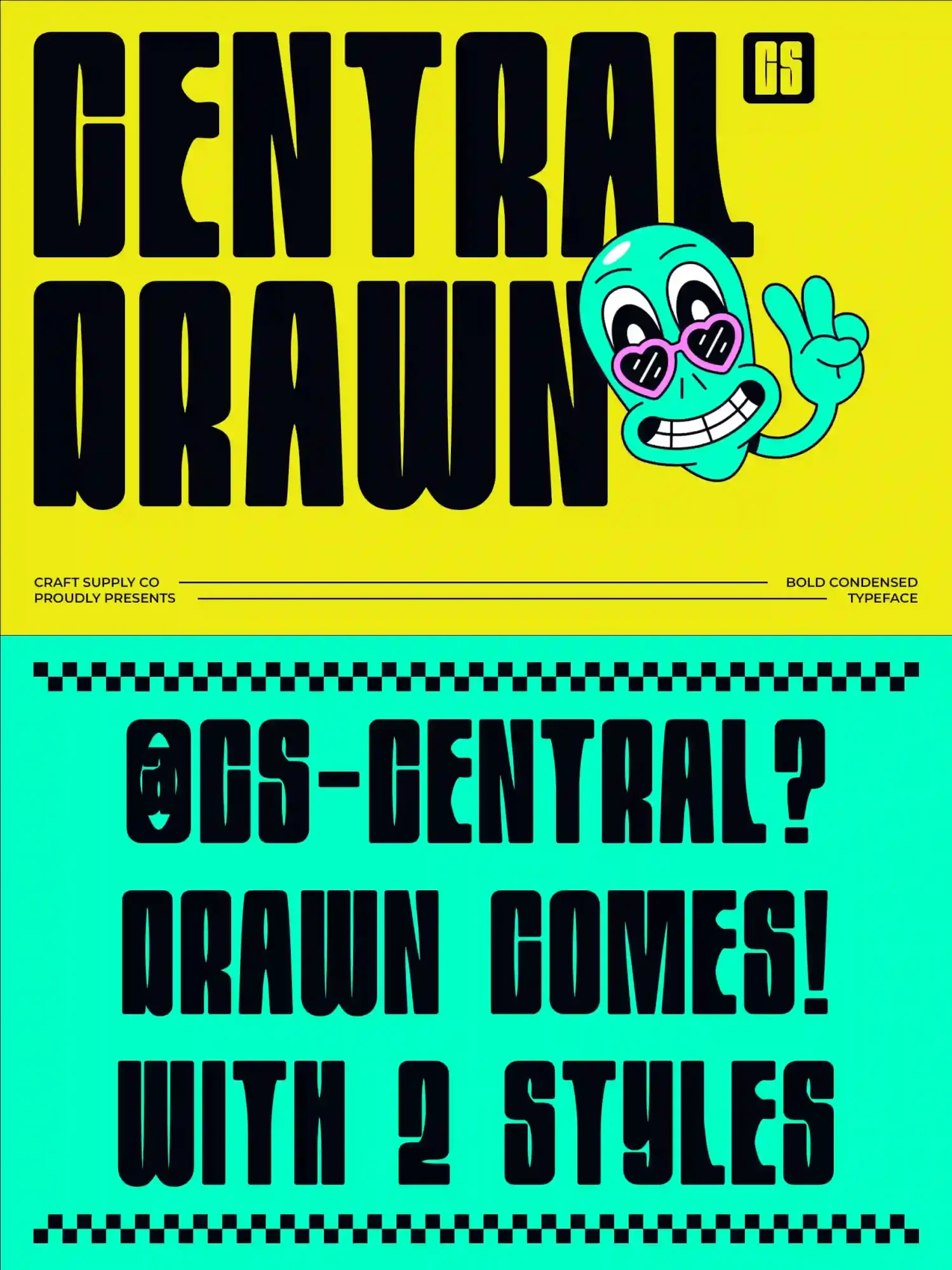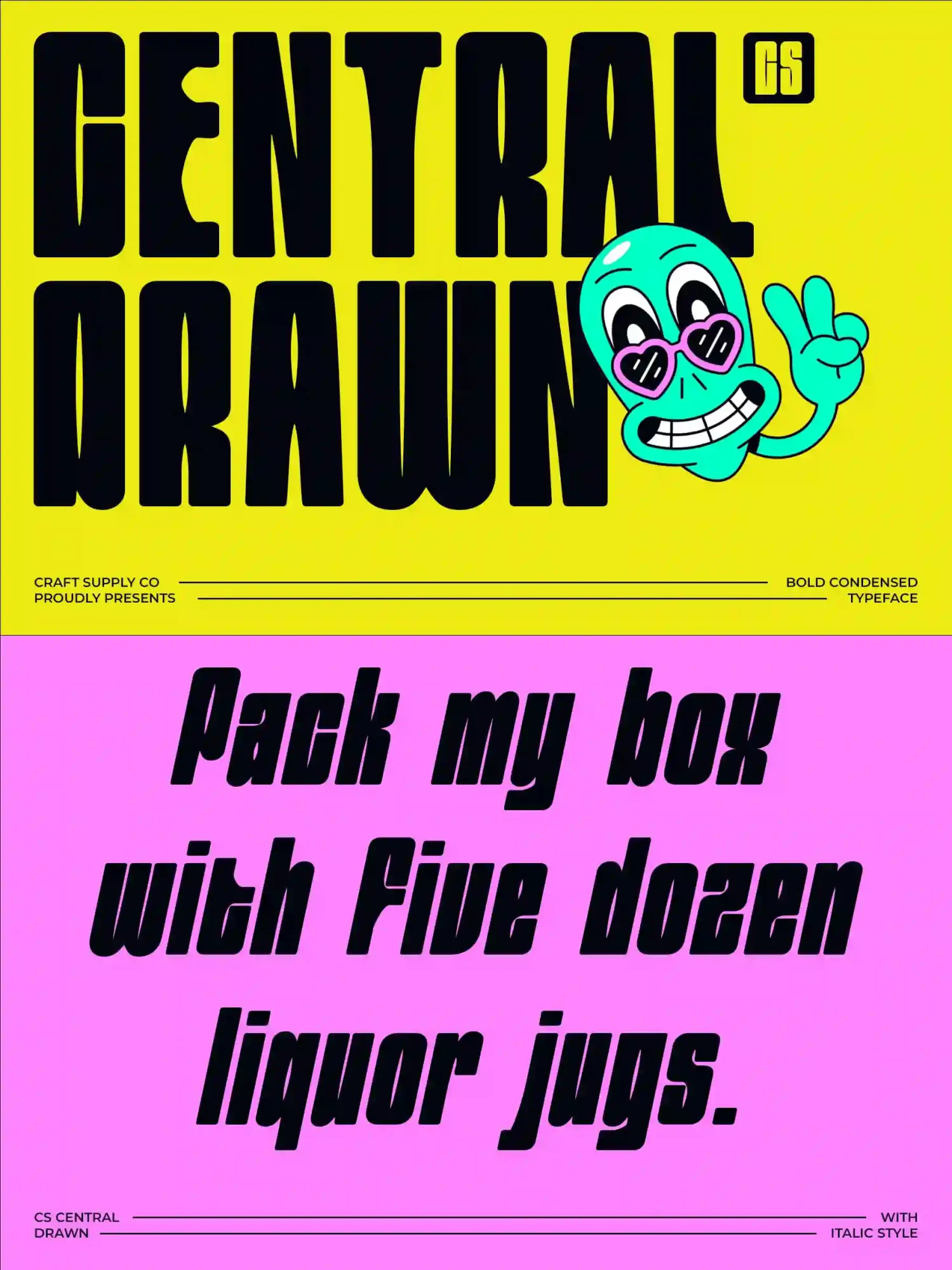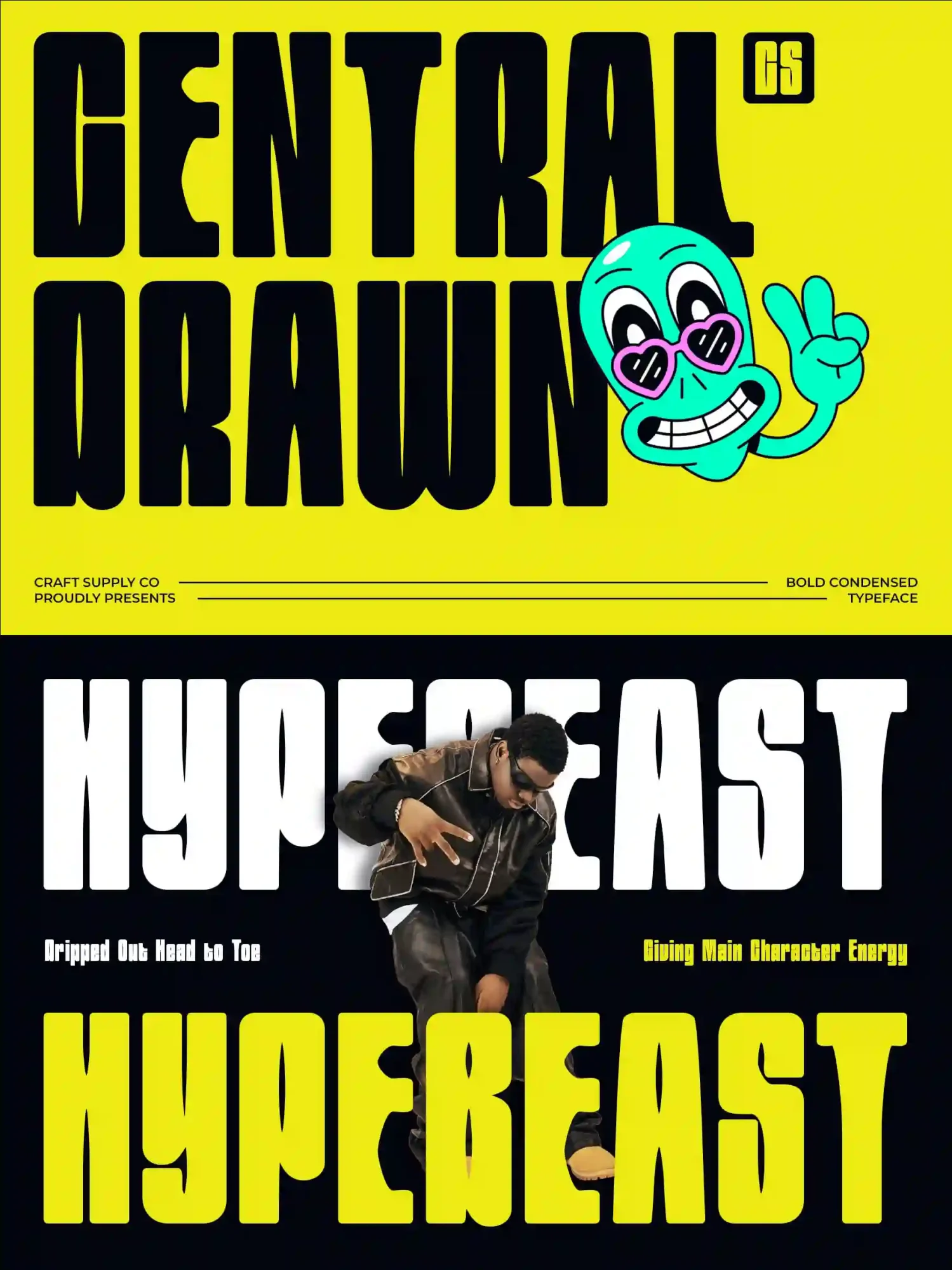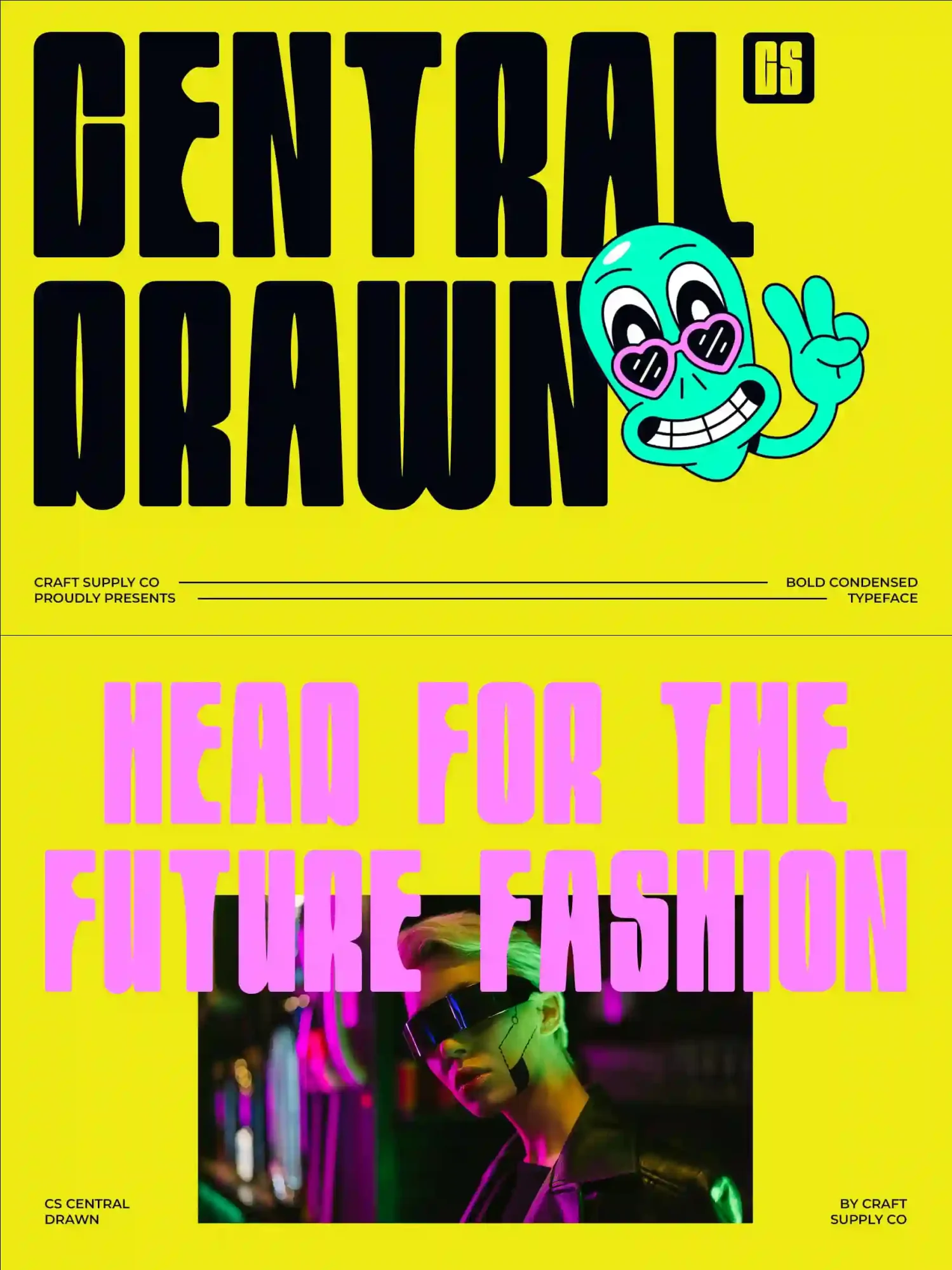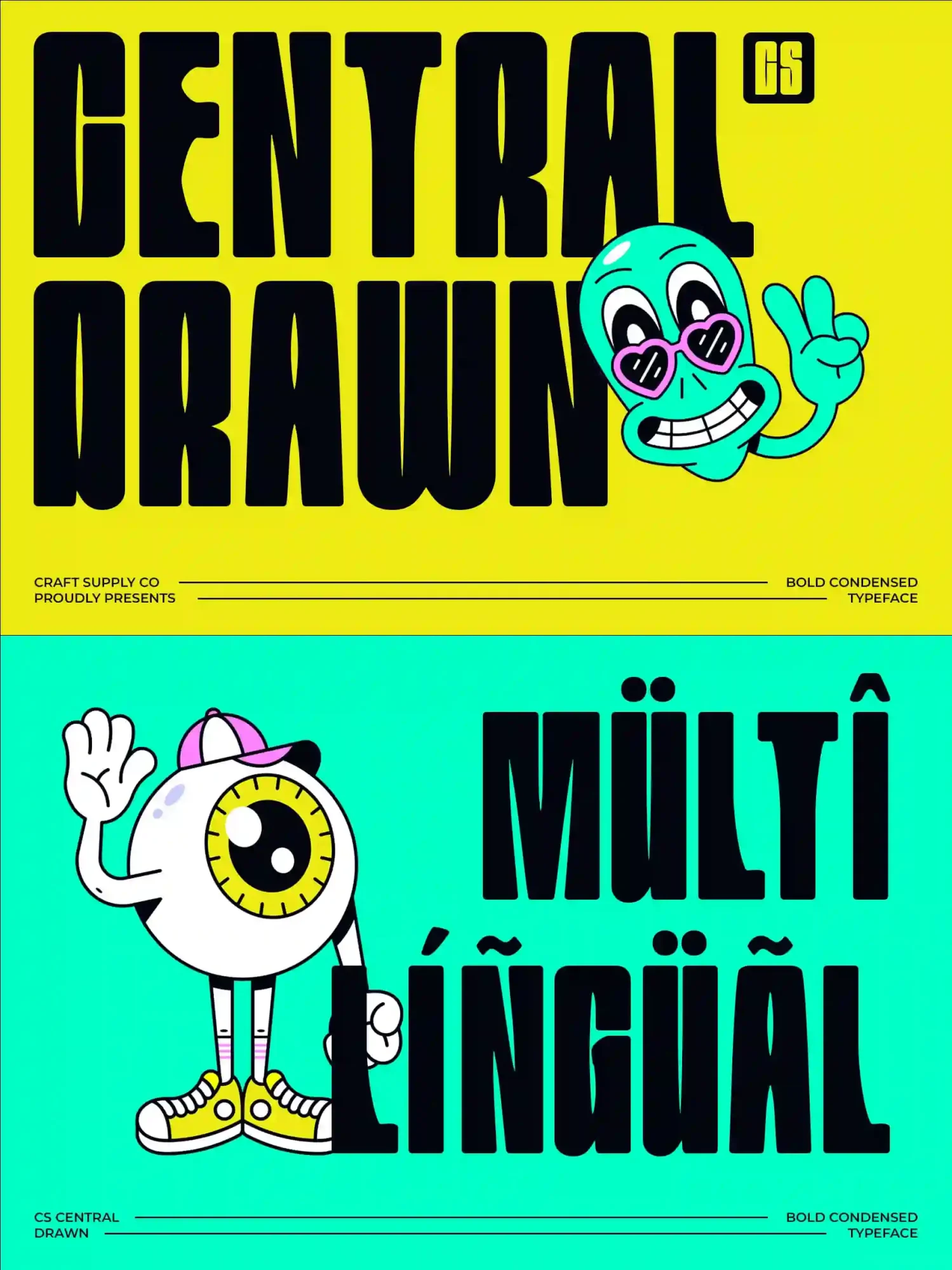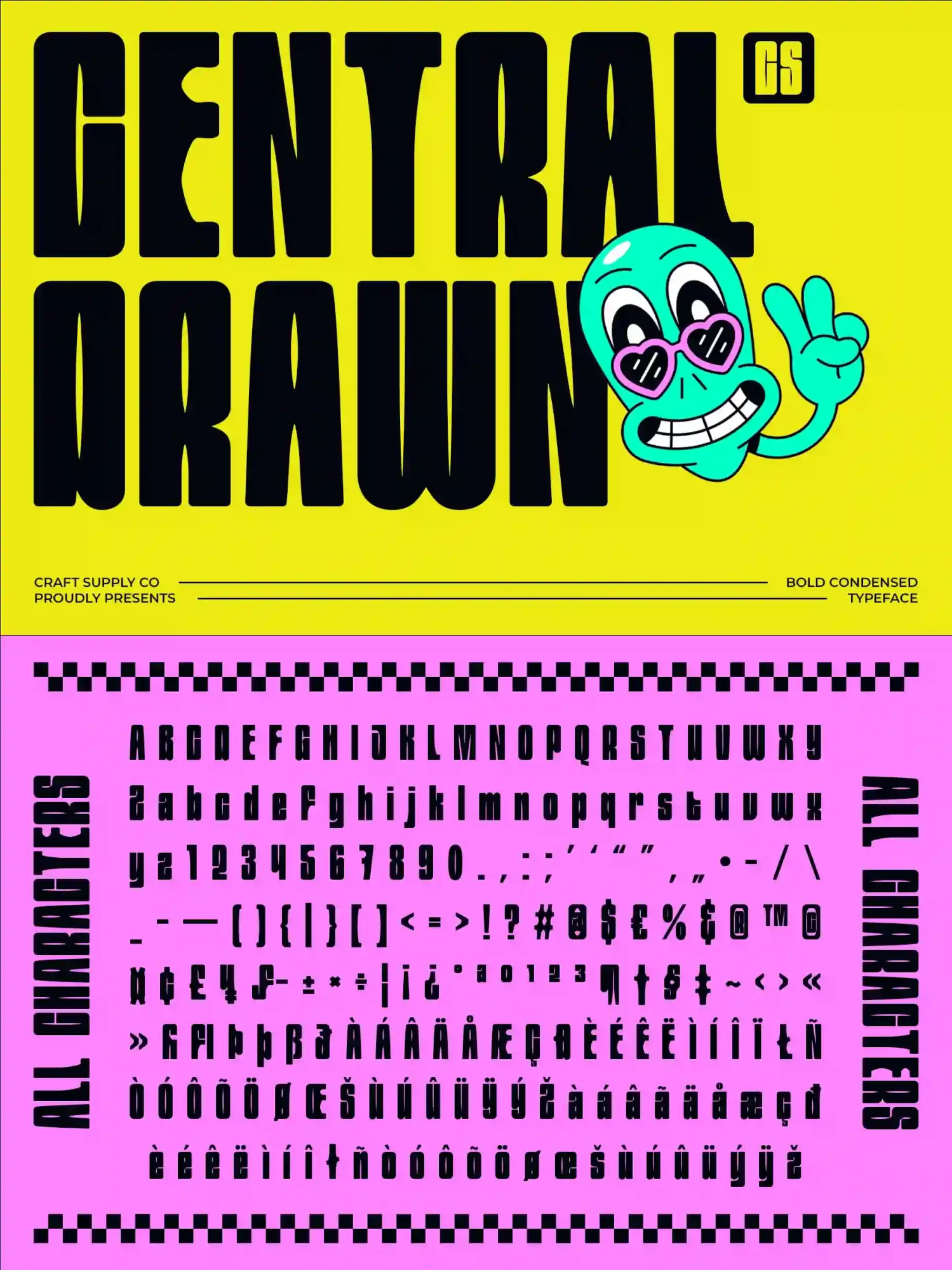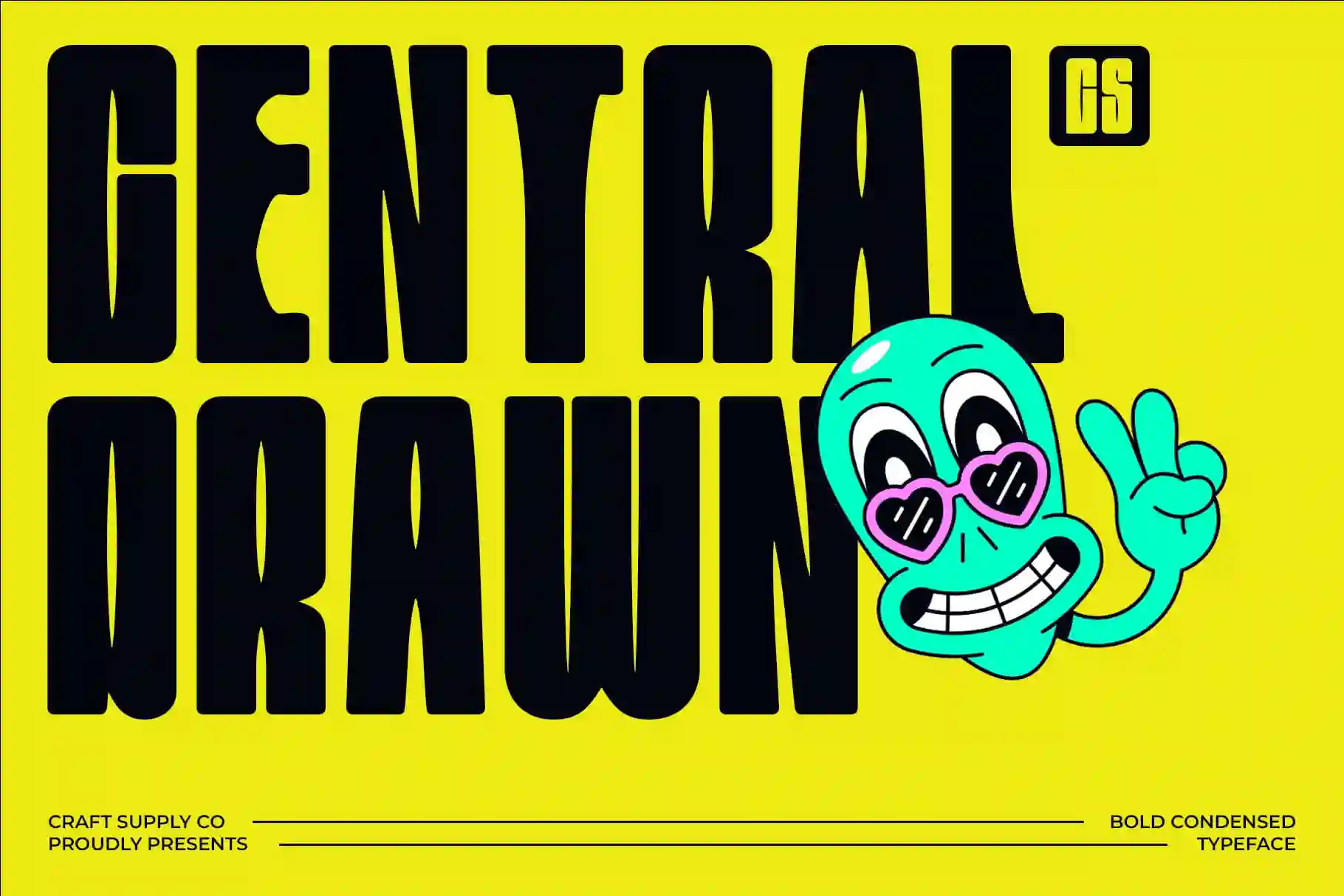
CS Central Drawn – Rugged Boldness with a Handcrafted Edge
Bold Condensed Sans Serif with Drawn Texture
CS Central Drawn is a modern sans serif font featuring a bold and condensed form designed for maximum visual impact and space efficiency. Each letter is built with a confident and solid structure, ensuring clarity and presence in every use.
Condensed Shape for Efficient and Eye-Catching Design
The condensed proportions make this contemporary font ideal for designs that demand compact yet powerful typography. Whether used in bold headlines, title treatments, or tight layouts, its space-saving form ensures messages are delivered effectively without sacrificing personality or style.